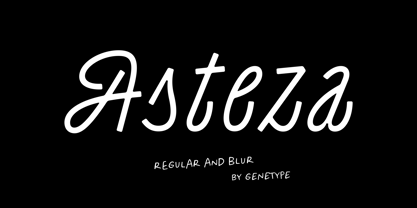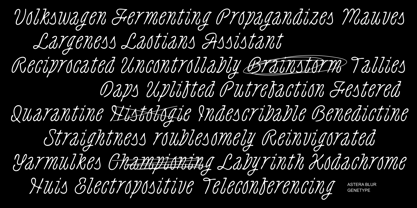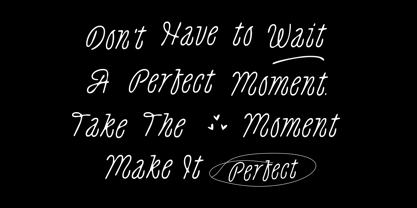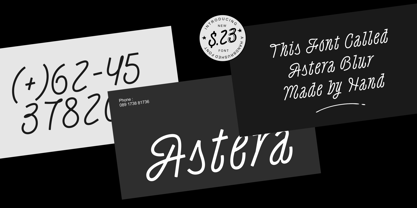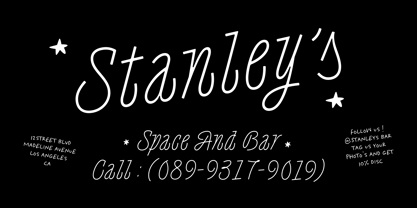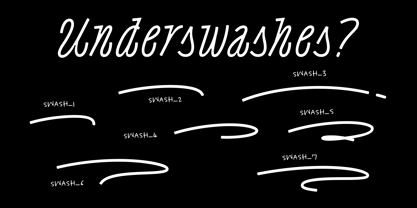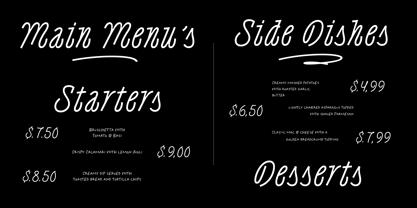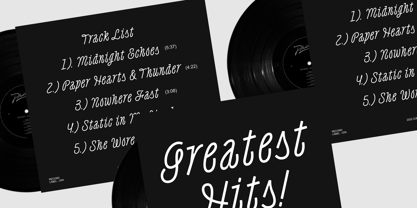
Asteza
by Genetype
The Asteza Font Family was designed by Bagus Arya Kirana and published by Genetype. Asteza contains 4 styles and family package options. More about this family
Asteza is a modern handwritten font that blends casual elegance with expressive character. Designed with smooth curves and natural strokes, it delivers a stylish yet approachable handwritten look that feels authentic and creative. This font comes in two unique styles: Regular and Blur, offering both clean and textured options for your designs. Perfect for restaurant menus, logos, posters, packaging, invitations, or music album covers, Asteza adapts beautifully to both print and digital designs. Featuring uppercase and lowercase letters, numerals, punctuation, and multilingual support, Astera gives designers everything needed for expressive and readable typography. Whether you’re going for a personal handwriting touch or a sleek branding statement, Asteza makes your text come alive.
Designers: Bagus Arya Kirana
Foundry: Genetype